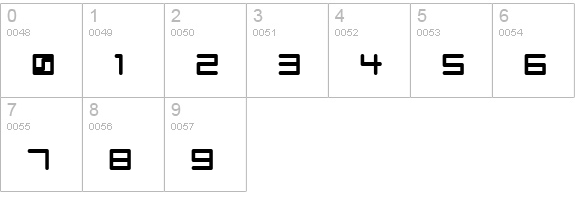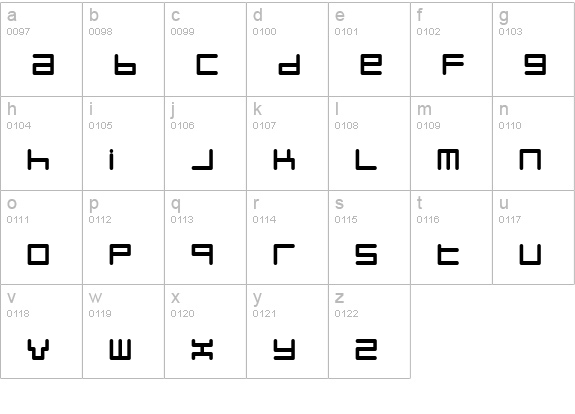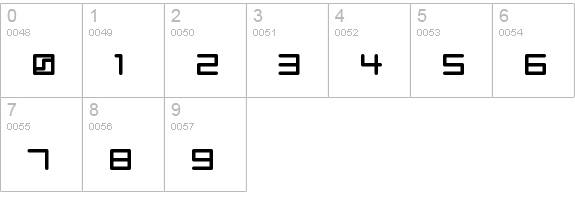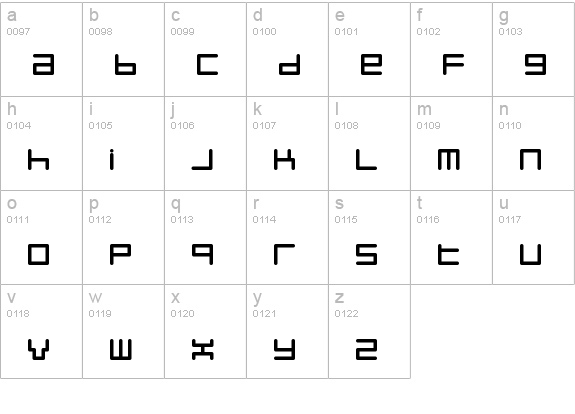
Neustyle Font Details
Neustyle font is a modern and stylish typeface that exudes elegance and sophistication. With its clean lines and contemporary design, Neustyle is perfect for adding a touch of class to any project. This versatile font is suitable for a wide range of applications, from branding to web design to print materials. Best of all, Neustyle font is completely free to download at FontsMarket.com. Whether you're a designer looking for a new font to add to your collection or a business owner in need of a fresh look for your marketing materials, Neustyle is the perfect choice. Don't miss out on this fantastic opportunity to elevate your projects with the sleek and professional Neustyle font. Download it now and start creating stunning designs today!